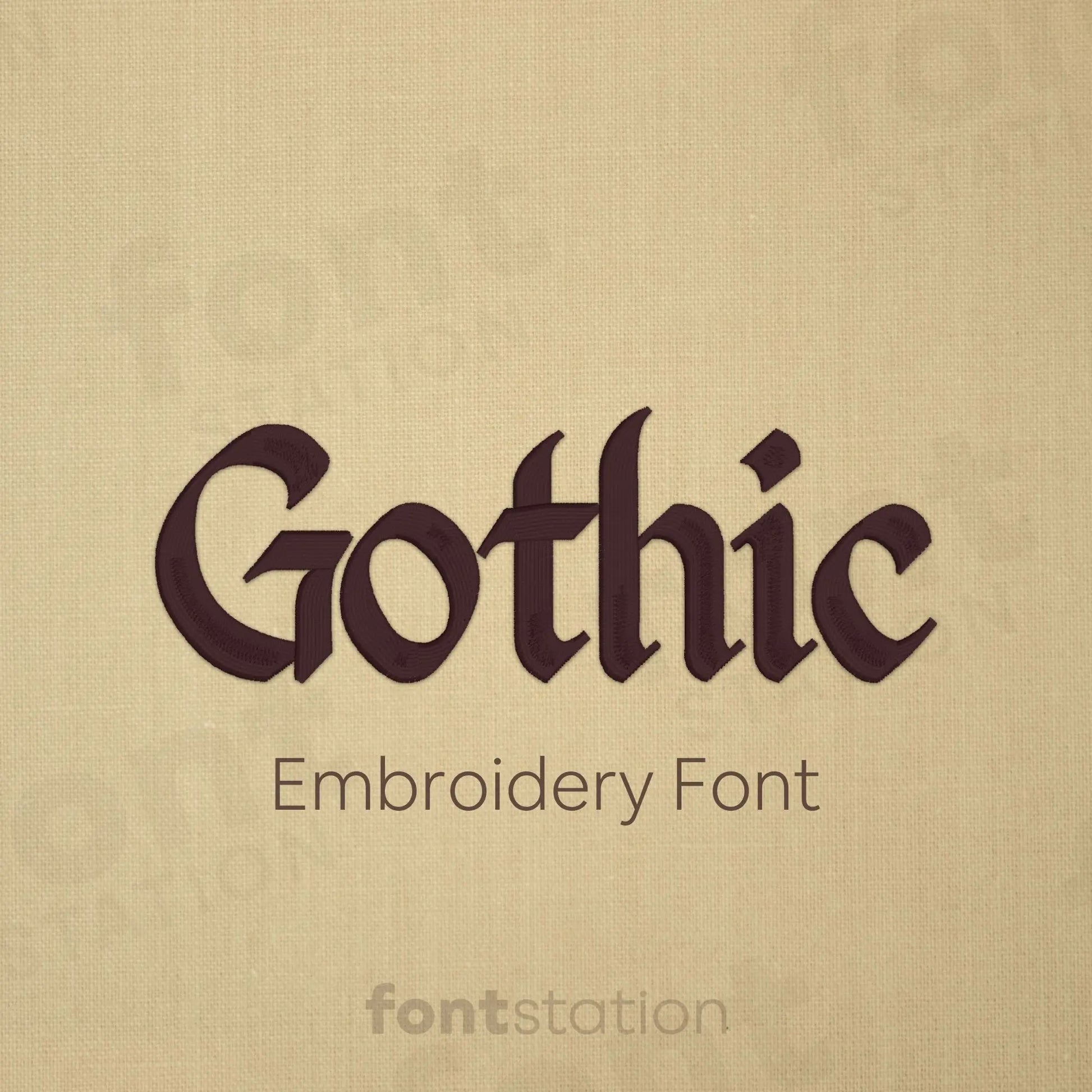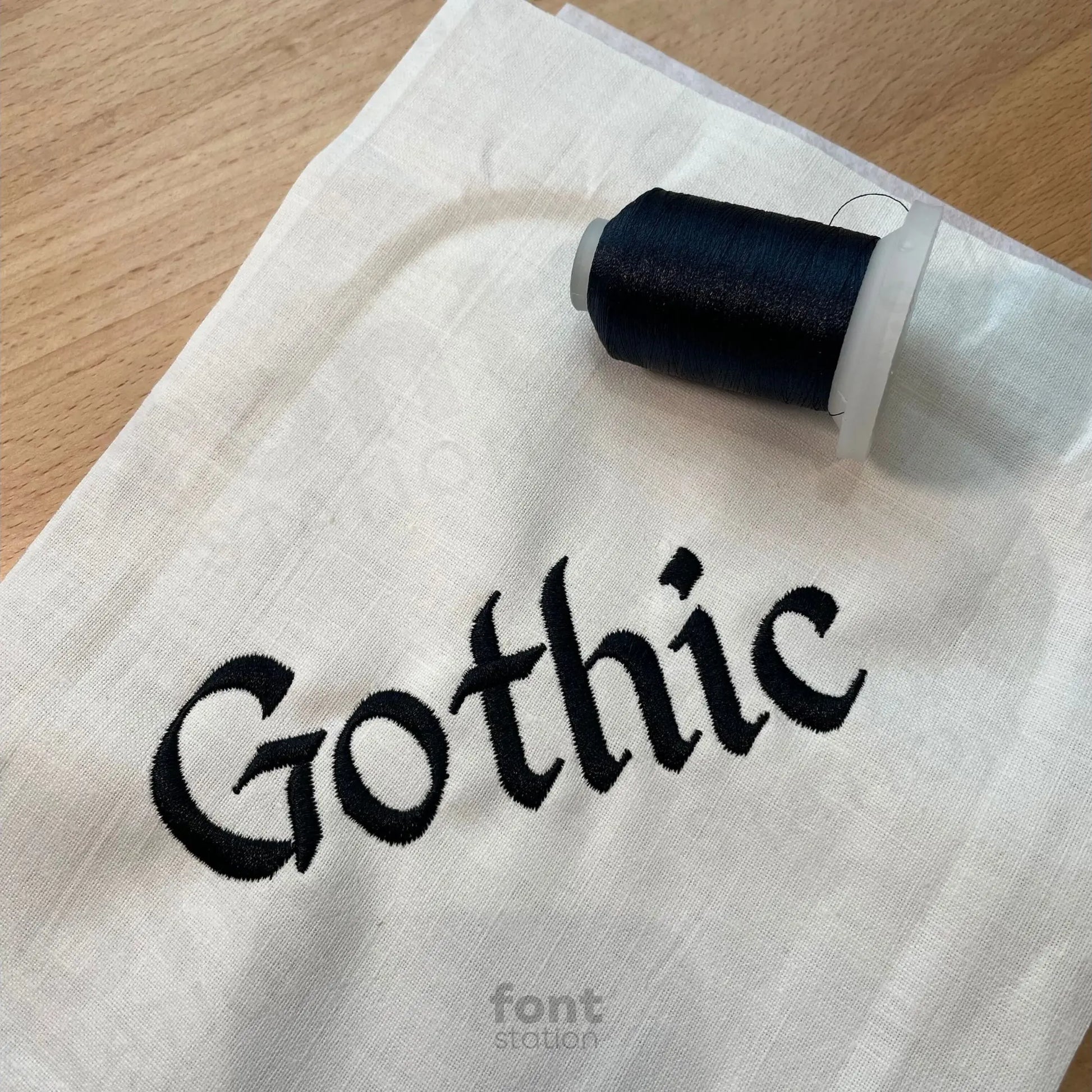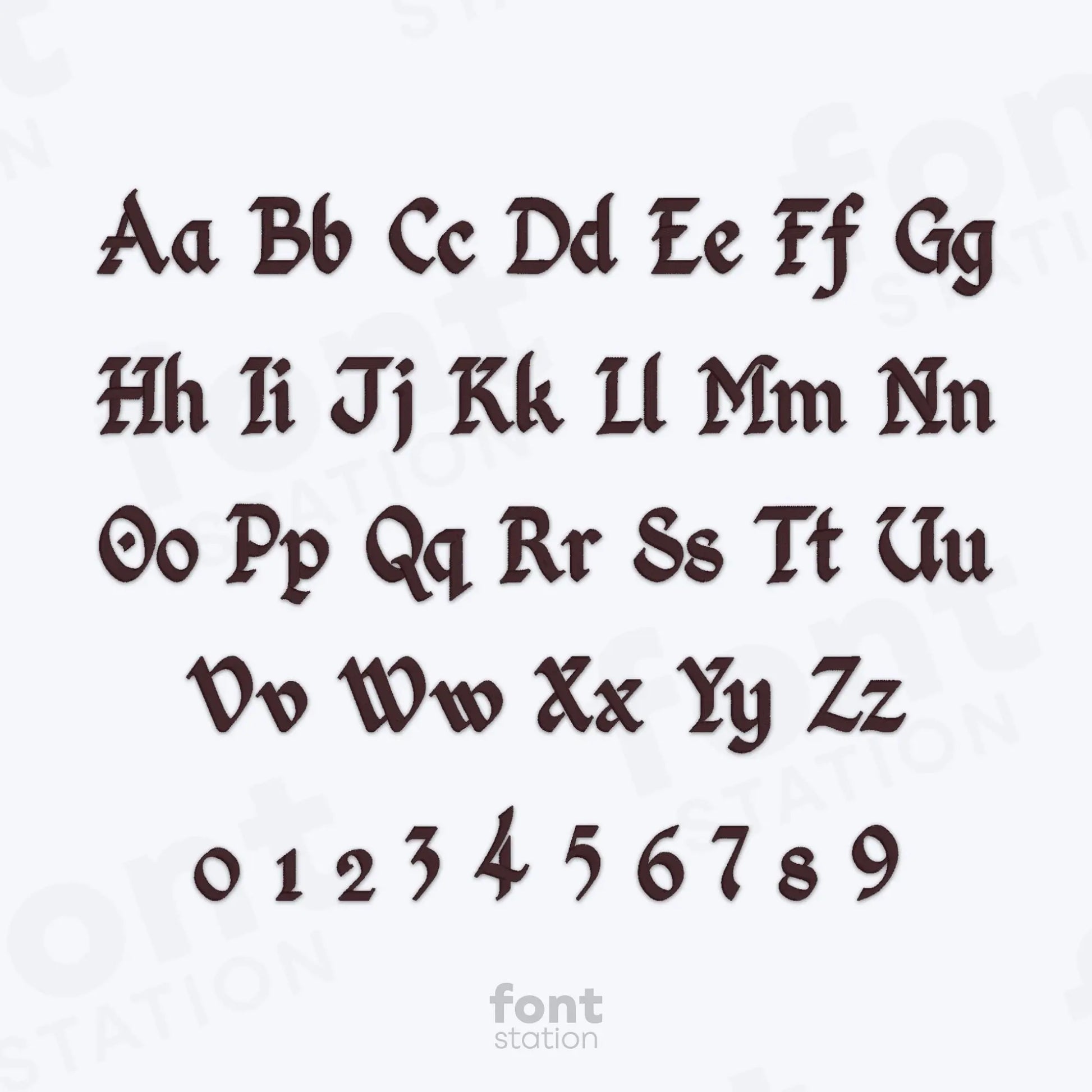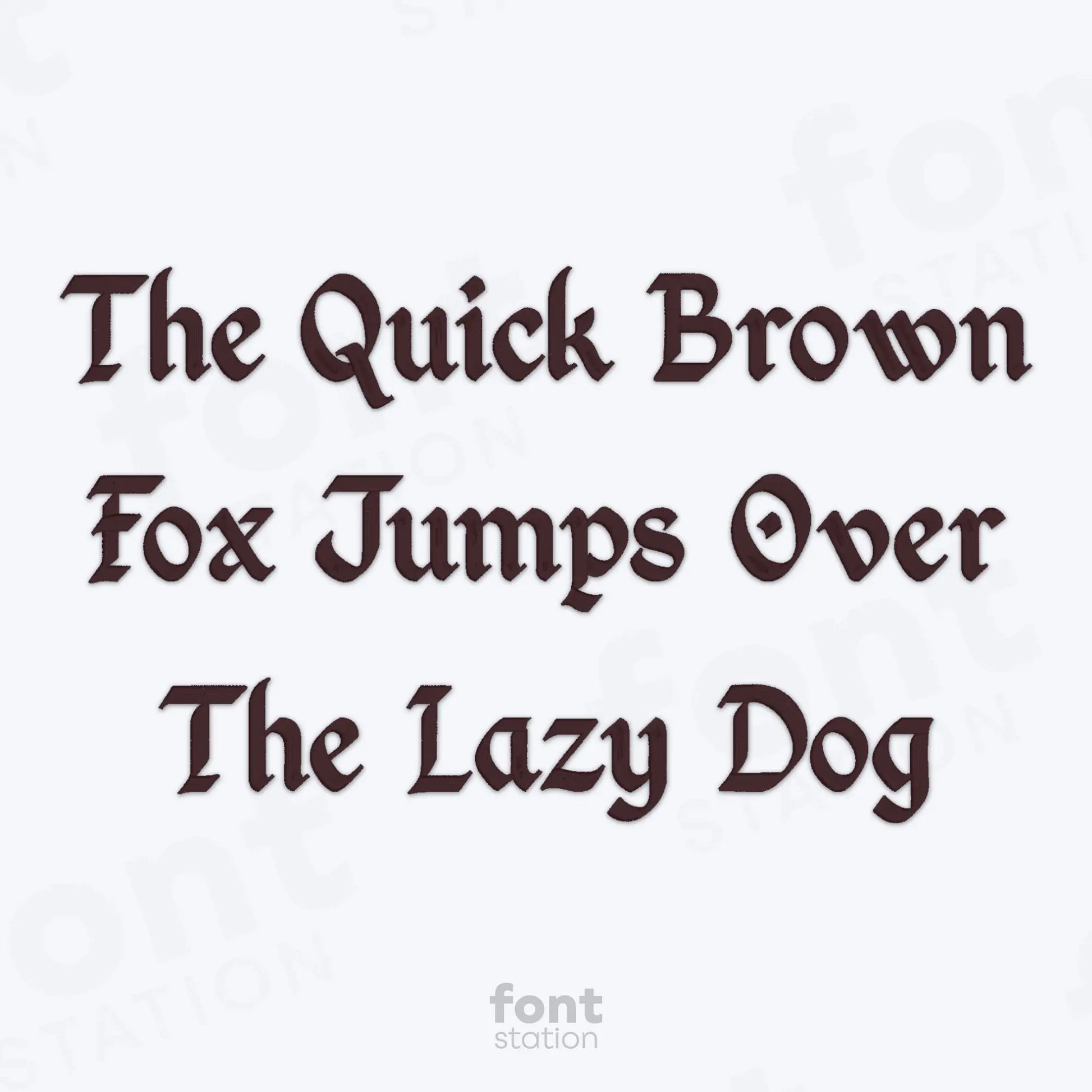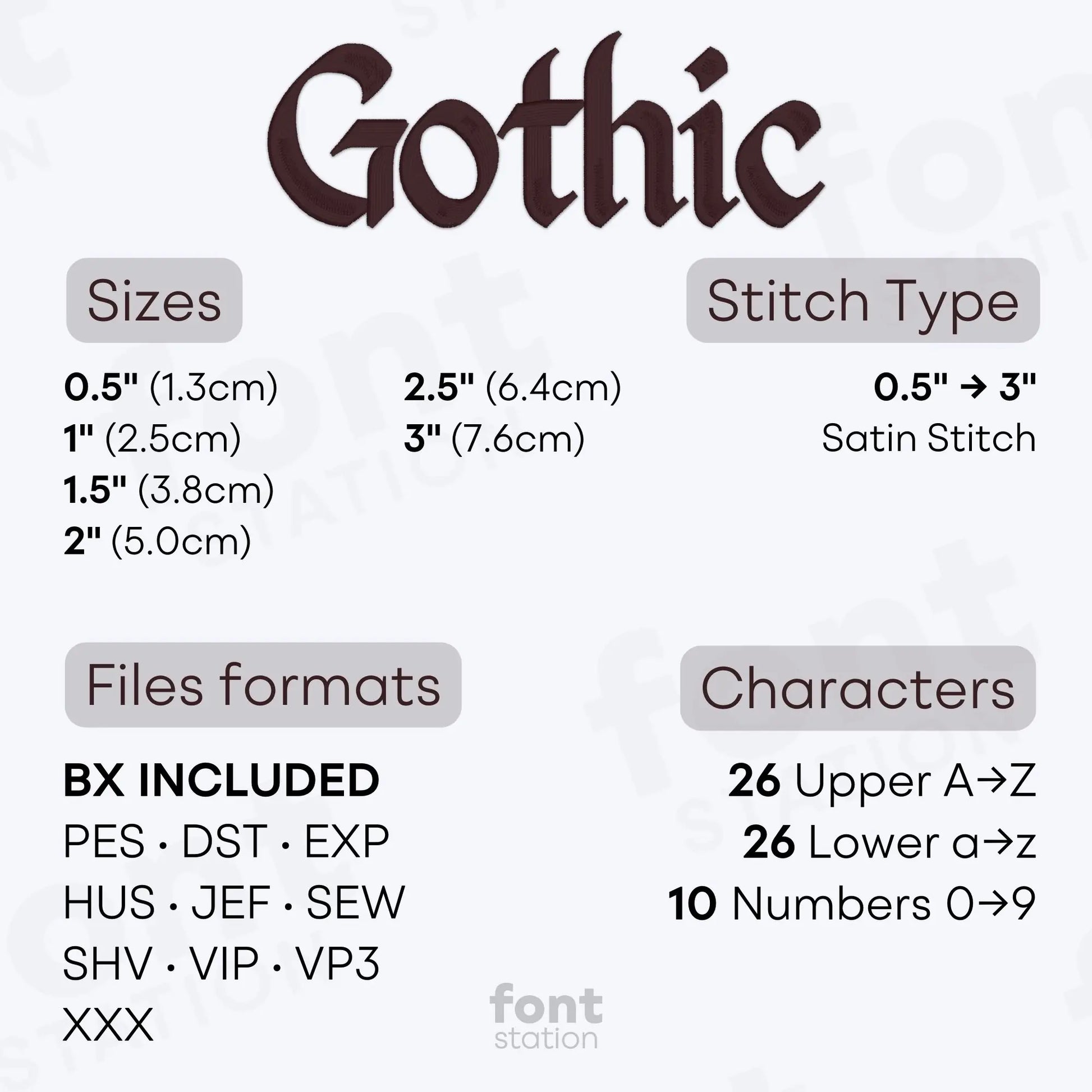
Gothic Embroidery Font
Introducing our Gothic embroidery font, a medieval blackletter alphabet perfect to stitch bold, decorative letters for your next embroidery project. Made for your embroidery machine, it's ideal for fantasy or baroque-inspired designs with character.
About the Gothic Embroidery Font
Characters: 26 uppercase, 26 lowercase, and 10 numbers
Our Gothic embroidery font brings medieval elegance and rich character to your embroidery projects.
The Gothic embroidery font features a striking blackletter alphabet inspired by medieval and baroque lettering styles. With ornate lines, sharp angles, and a historic flair, these embroidery letters are perfect for fantasy themes, vintage monograms, and bold decorative designs. Professionally digitized for smooth stitching, this medieval embroidery font includes formats like BX, PES, DST, JEF, EXP, VP3, HUS and more, making it compatible with nearly every embroidery machine.